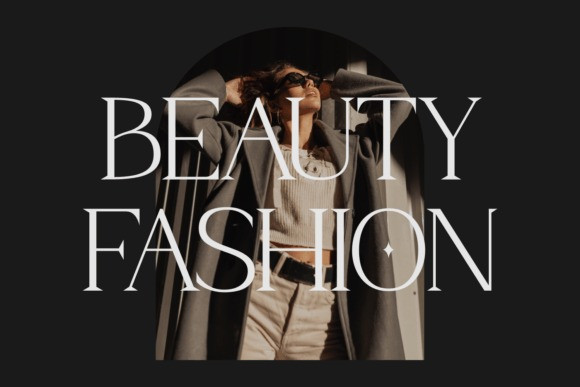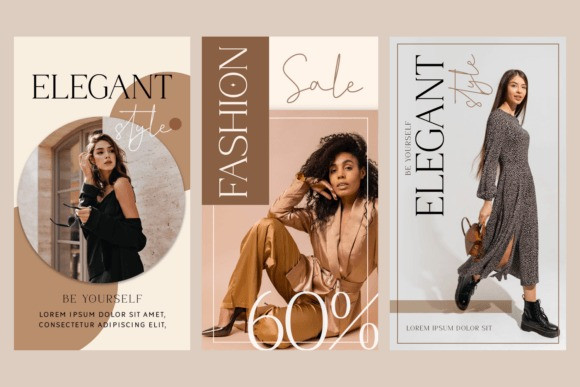
Alinoe Font
Alinoe Font is an elegant and bold serif font. Fall in love with its incredibly versatile style and use it to create gorgeous wedding invitations, beautiful stationary art, eye-catching social media posts, and much more!